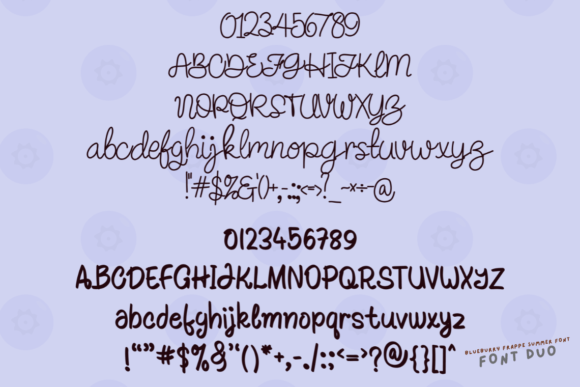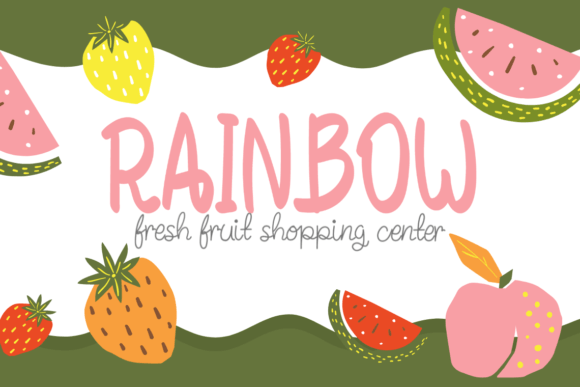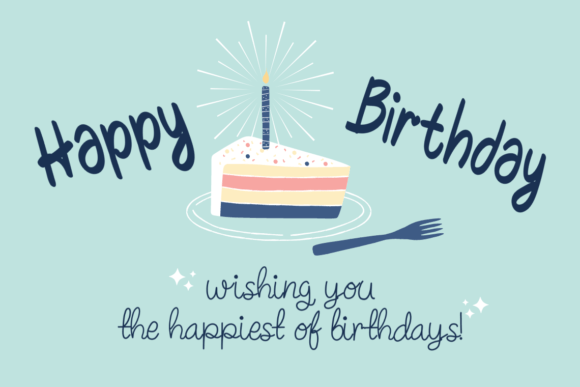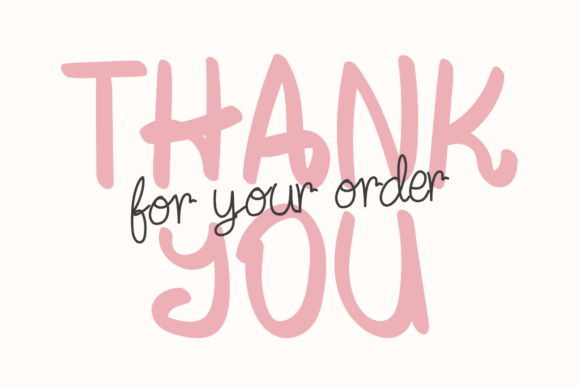
Beat the Heat with a Refreshing Design Twist
As the sun beats down on a sweltering summer day, there’s nothing quite like the feeling of creativity flowing. You’re brainstorming ideas, sipping on a cool drink, and suddenly, inspiration strikes. The “Blueberry Frappe Summer” Font Duo is born – a vibrant and playful typography duo that captures the essence of a refreshing summer day.
This charming font pack is designed to add a splash of fun to your designs, from party invitations to social media graphics and beyond. With its unique blend of elegance and whimsy, the “Blueberry Frappe Summer” Font Duo is a valuable asset for designers looking to elevate their creative projects to new heights. Whether you’re working on a summer-themed campaign or simply want to add a pop of color to your designs, this font duo is sure to delight.
Blueberry Frappe Summer Font Key Features
- Font Family: Blueberry Frappe Summer Font, a unique and playful sans-serif font.
- Unique Characteristics: Features a distinctive rounded edge design, with a fresh and modern feel.
Blueberry Frappe Summer Font Review
Overall, I think the Blueberry Frappe Summer Font has some great qualities that make it perfect for certain designs, but it also has some limitations that might not make it suitable for everyone. Let’s dive in!
- Unique and playful style: This font is perfect for designs that need a fun and quirky touch. It’s great for summer-themed projects, food labels, or even children’s book covers.
- Customizable: The font offers various style options, including bold and italic, which gives you more flexibility when using it in your designs.
- Good legibility: Despite its playful style, the font is still easy to read, making it a great choice for body text or headings.
- Limited versatility: The font’s unique style might not be suitable for more formal or professional designs, such as business cards or resumes.
- Not ideal for small text: Due to its playful style, the font might not be the best choice for small text or fine details, as it can become difficult to read.
The Blueberry Frappe Summer Font is a great addition to any designer’s toolkit, but it’s essential to use it in the right context. If you’re looking for a fun and playful font for a summer-themed project or a children’s book cover, this font is perfect. However, for more formal or professional designs, you might want to consider other options.
The “Blueberry Frappe Summer Font” is perfect for:
– Summer-themed designs and marketing materials
– Playful and fun graphics and illustrations
– Social media posts and captions
– Summer-themed party invitations and decorations